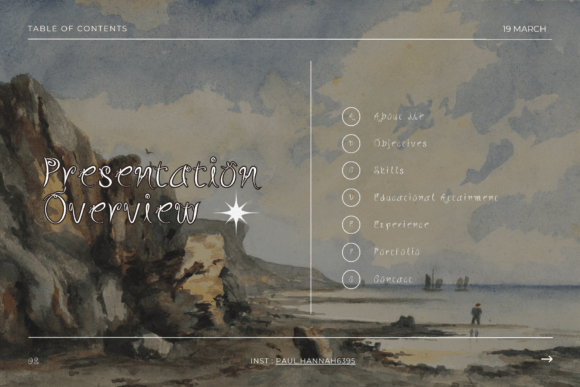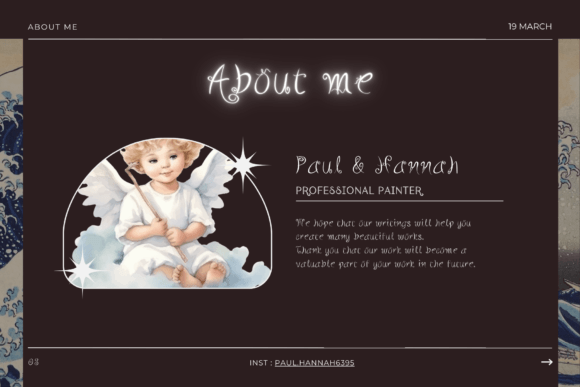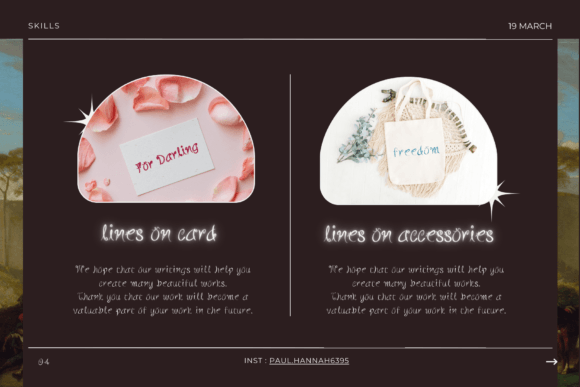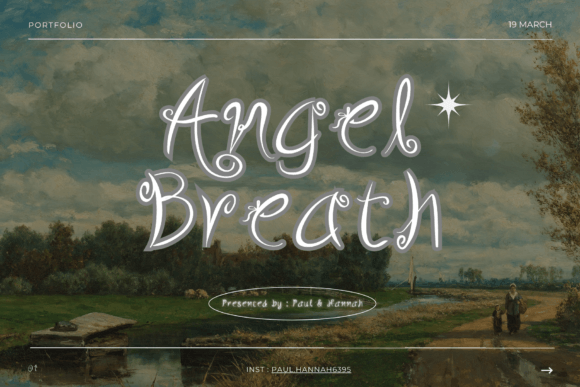
Introduction to Angel Breath Font
Angel Breath font is inspired by the gentle breeze that is said to heal the human body and mind.
which is comparable to the breath of the gods This font is designed to be beautiful and gentle in itself, suitable for various creative works that require uniqueness .